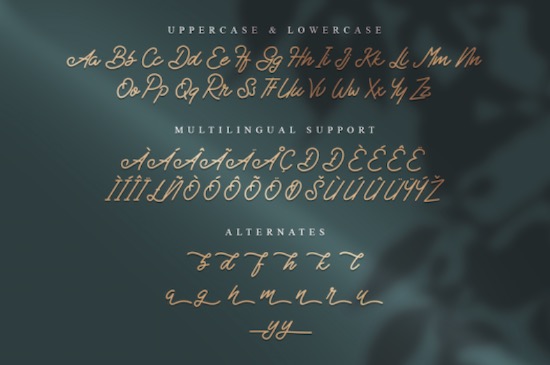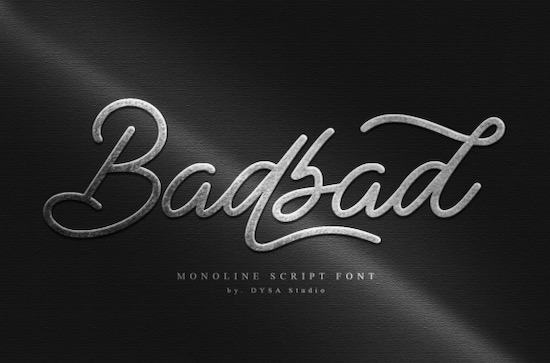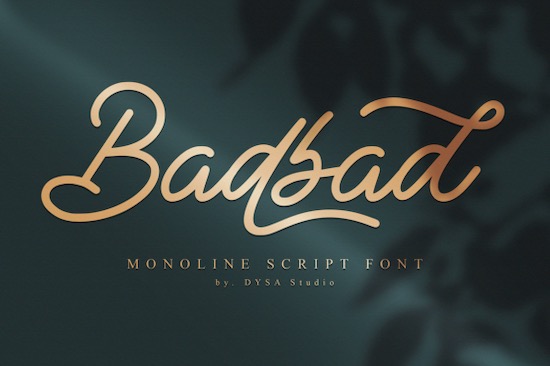
Badbad font is a monoline script typeface. It was released by DYSA Studio and it gives a handcrafted authentic feel style, along with unique smooth edges.
Badbad is a gorgeous monoline script font. It features exclusive ligatures and swashes that make this script incredibly versatile. This font is very suitable for almost graphic designs example quotes, photography, prints, covers, gift cards, branding materials, logos, business cards, t-shirt, thumbnails, posters, and much more.
Badbad Handwritten Script Font
Badbad Font